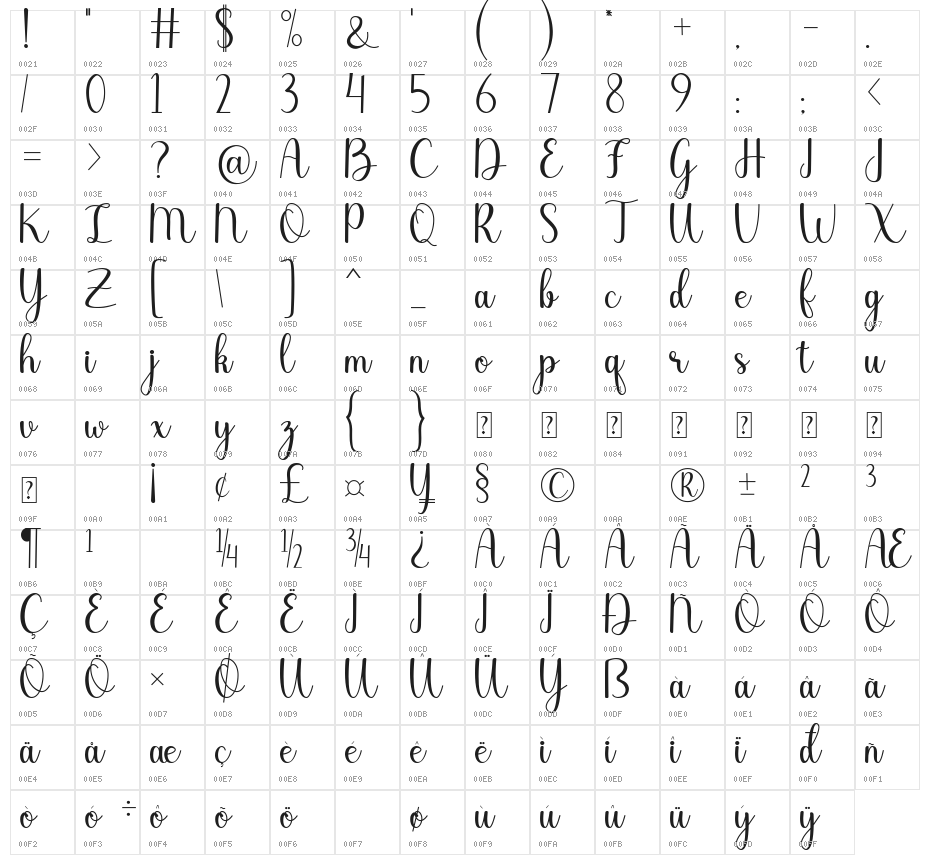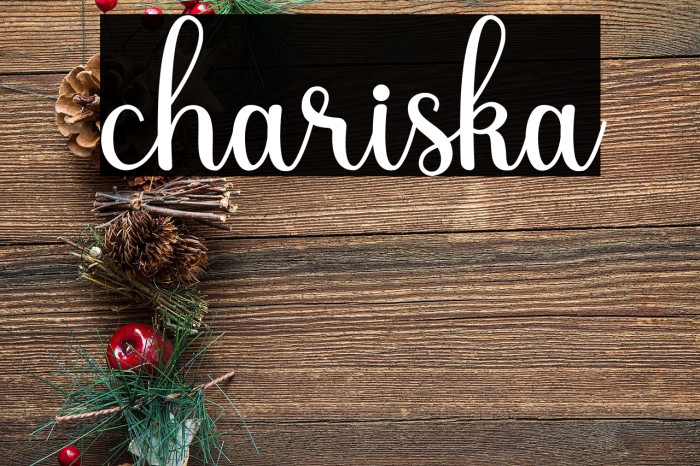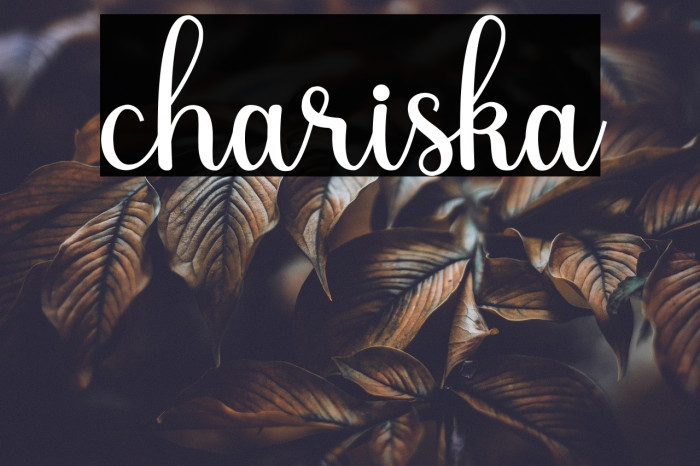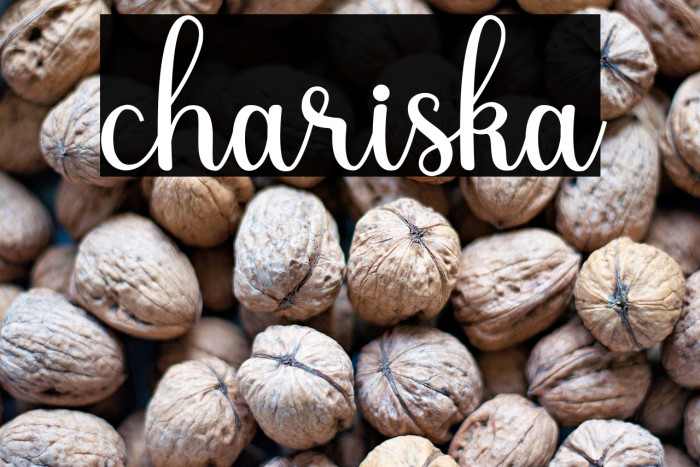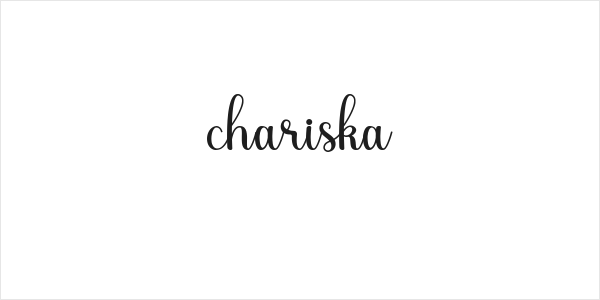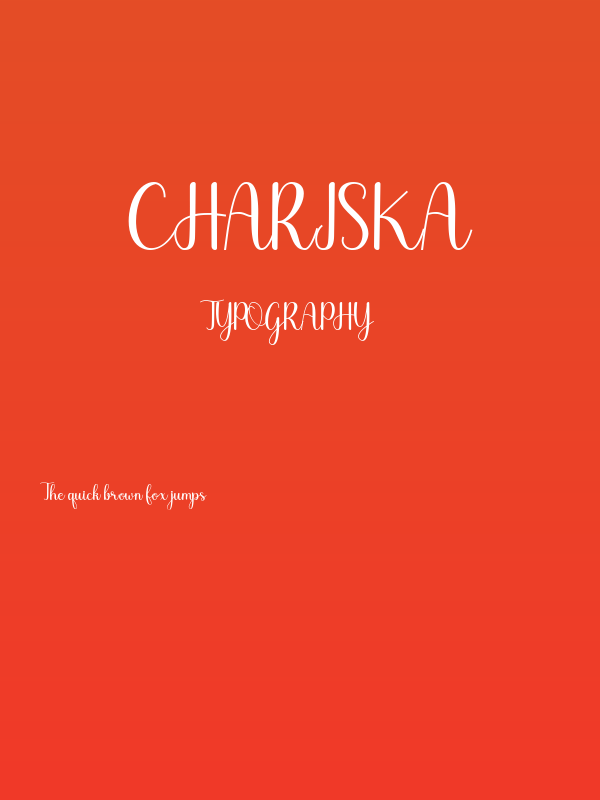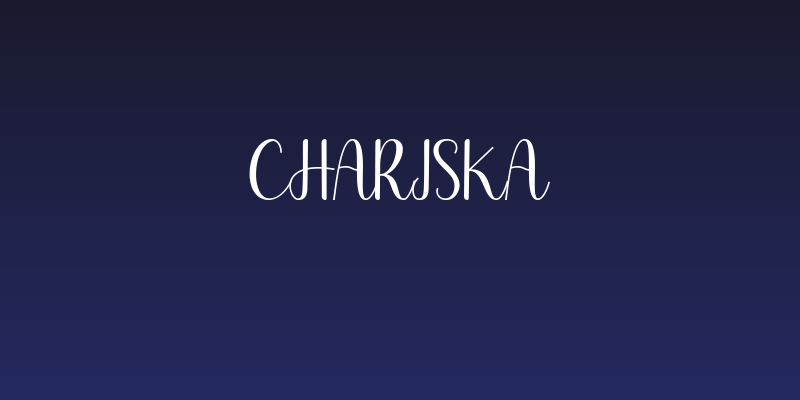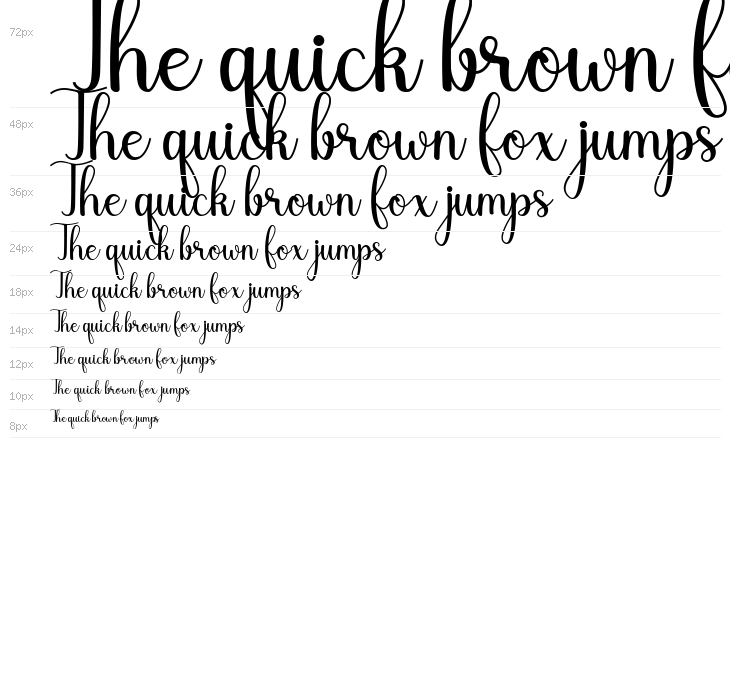
chariska Font
chariska Description
This font features a stylish and elegant script design with a flowing, cursive appearance. The uppercase letters are tall and slender, with graceful loops and curves that give a sense of movement and fluidity. The lowercase letters maintain a consistent style, with some characters featuring distinctive flourishes that add to the overall charm. The numerals are sleek and modern, complementing the script style with their clean lines. Special characters are thoughtfully designed to match the aesthetic, making this font versatile for various creative projects.
Overall StyleElegant
Use CaseLogos, Invitations, Decorative text
Proposed ProjectsIdeal for wedding invitations, greeting cards, branding, and logo design.